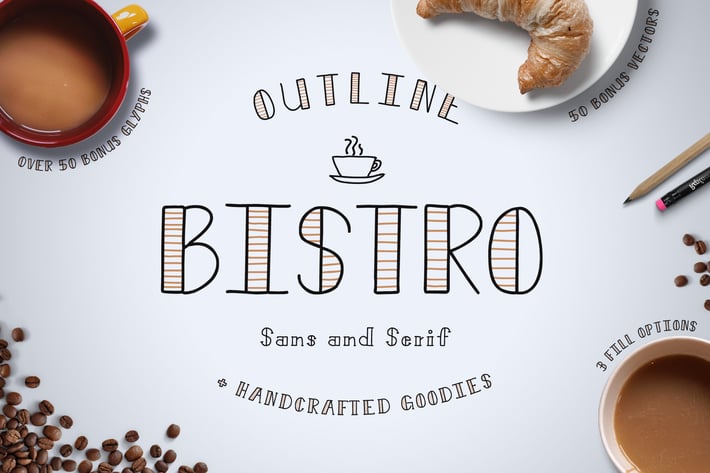
Bistro Font
ABOUT BISTRO::::::::::::::::::::::::::::::::::::::::::::::::::::::::::::::::::
Bistro Sans & Serif is a hand crafted font that's inspired by the chill vibes of your local cafe. It's full of those hand-written imperfections that make your designs come to life! The three weights can be enhanced with a bi-color interior, fill, line, or slant to give your design that vintage or quirky feel. To do so, simply superimpose the two fonts: the weight above, the interior below. This sans serif is perfect for invitations, wedding elements, typography, and prints.
This package comes with two style fonts (sans & serif). That's right, I won't make you pay for them separately like a tool! Each comes in three weights and includes three fill options (fill, slant, or line). Each of these come in an OTF, TTF, and Webfont file and may be used for personal or commercial uses! This font family includes 26 capitals, 26 lowercase, a plethora of punctuation, and OVER 50 BONUS glyphs including language support characters in upper and lower case.